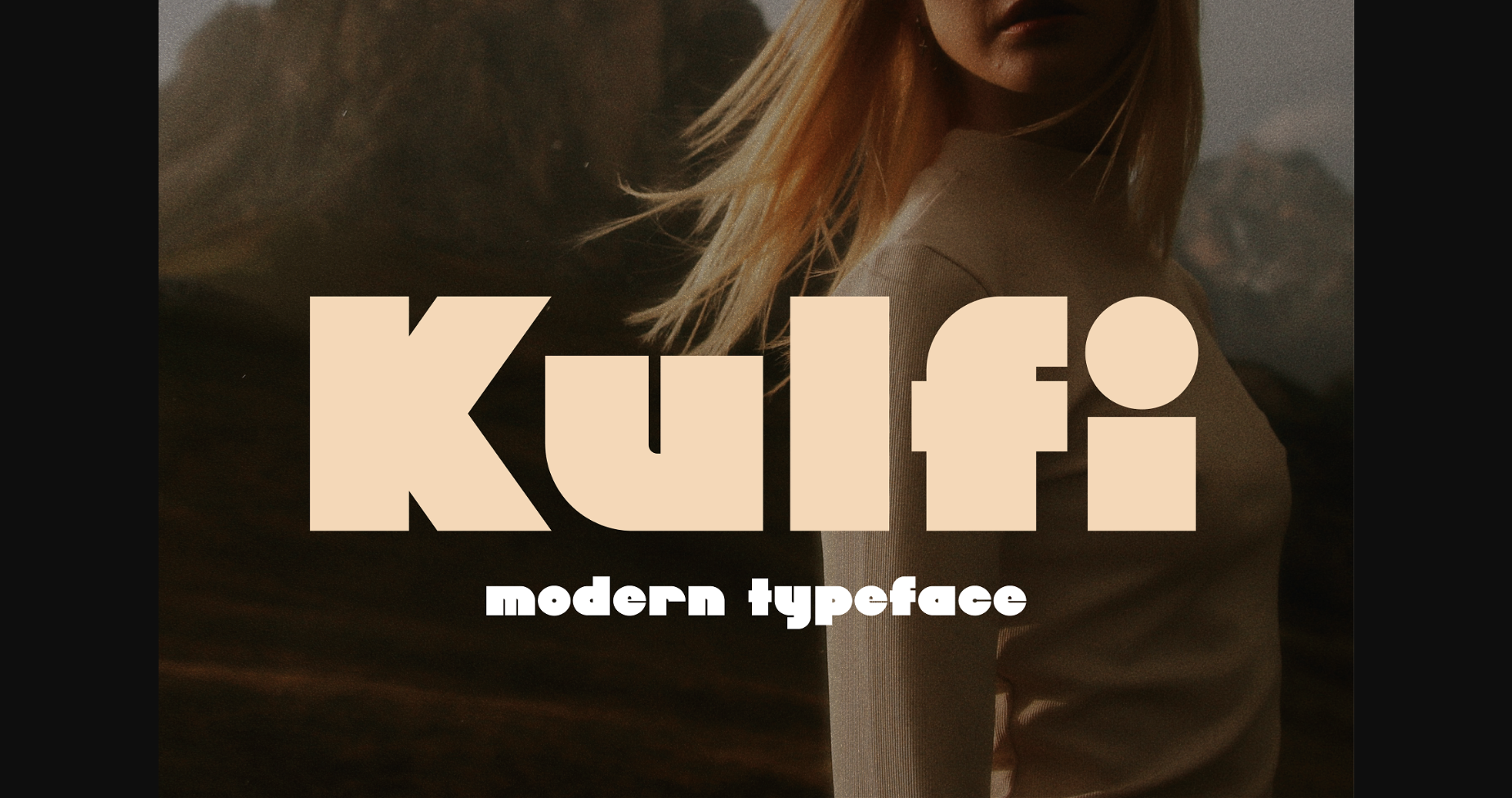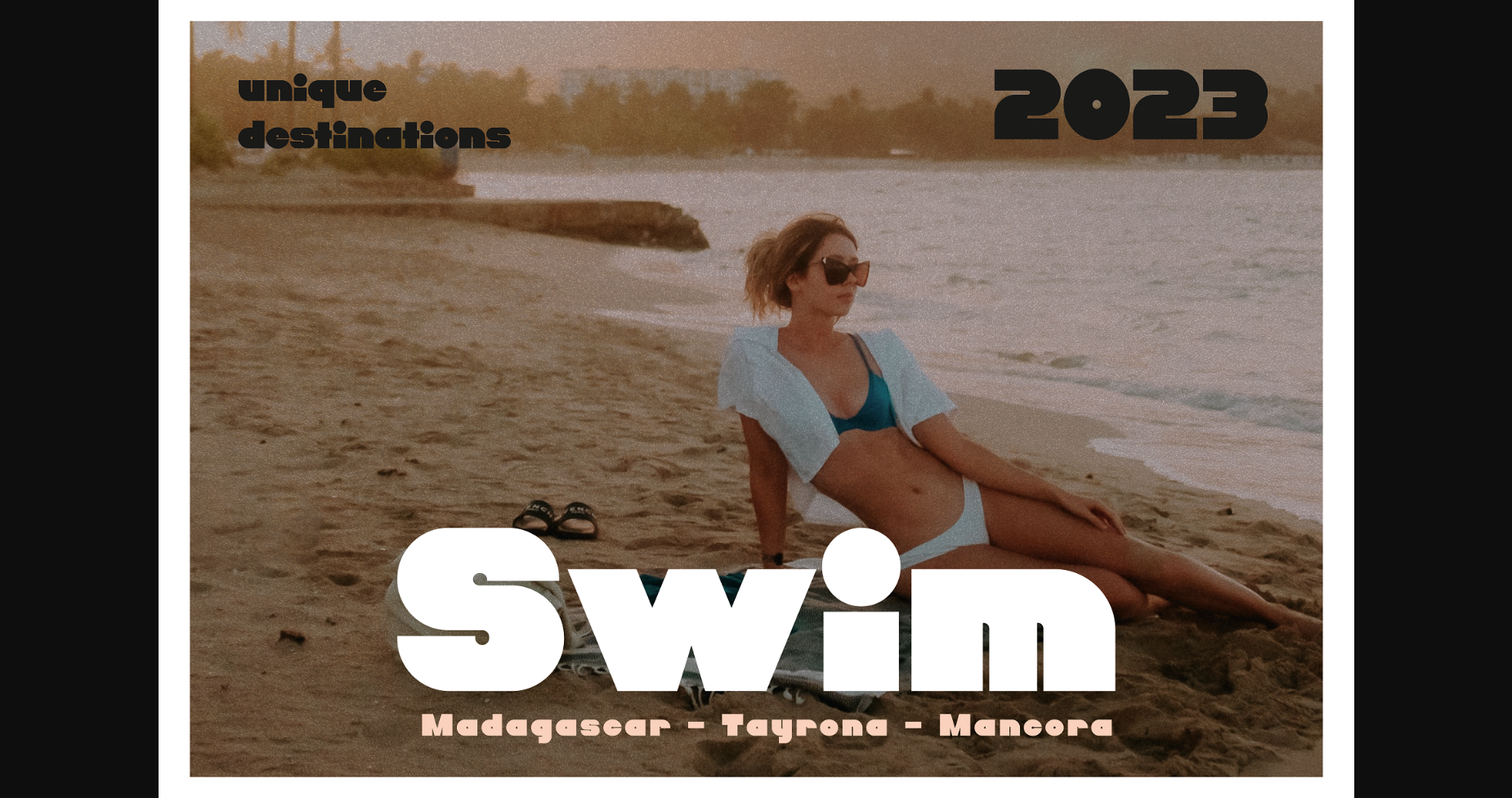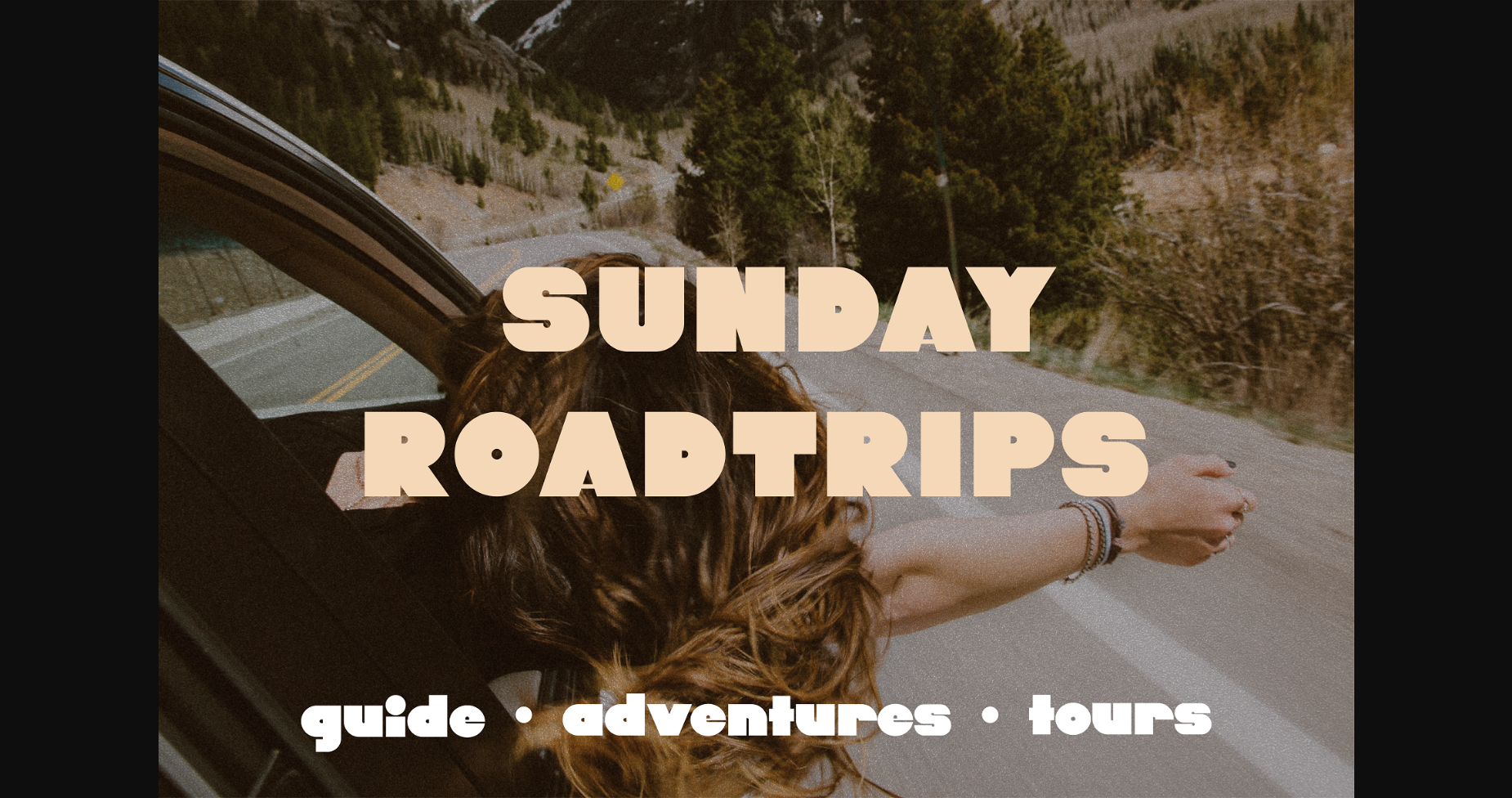
About Kulfi Font
Kulfi is a juicy display font full of joy. This distinctive typeface features large rounded geometric shapes and soft lines. Kulfi is ideal for playful projects like storybooks, packaging, branding, kid products, headlines, social media, and more. Kulfi is modern, expressive, and fun. A must for your digital assets toolbox.